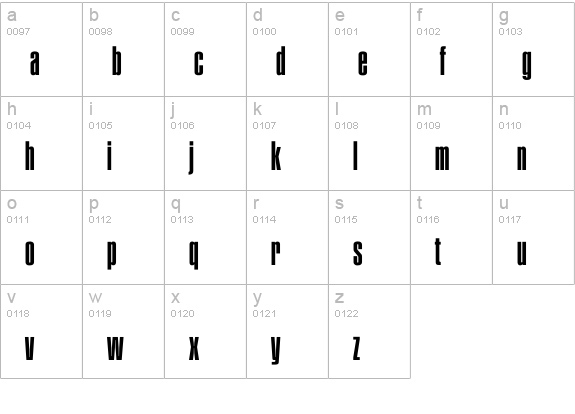
Plakat Medium is a balanced, medium-weight variant in the Plakat typeface family \xE2\x80\x94 well suited to sub-headlines, navigation, and balanced editorial work.
Plakat Medium is a visually stunning font that combines contemporary elegance with a touch of vintage charm. With its bold and confident letterforms, this typeface stands out in any design, capturing attention and leaving a lasting impression. The Plakat Medium font is perfect for a wide range of creative projects, from eye-catching headlines and impactful posters to stylish logos and captivating branding. Its clean and distinct lines give it a modern and sophisticated look, while its slightly rounded corners add a subtle warmth and approachability. One of the best things about Plakat Medium is that it is not only incredibly versatile and aesthetically pleasing, but it is also free to download at FontsMarket.com. This means that you can access this remarkable font without any hassle or cost, making it an excellent choice for both personal and commercial projects. Whether you're a professional graphic designer or a creative enthusiast, Plakat Medium offers a wealth of possibilities. Its extensive character set includes a variety of uppercase and lowercase letters, numbers, punctuation marks, and special symbols, ensuring that you have everything you need to bring your vision to life. With Plakat Medium, you can effortlessly create stunning designs that make a statement and stand out from the crowd. So why wait? Head over to FontsMarket.com now and download this remarkable font for free. Unleash your creativity and let Plakat Medium take your designs to new heights.